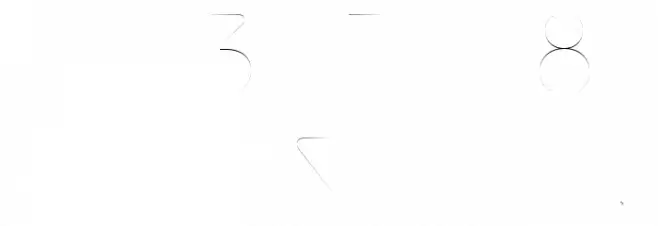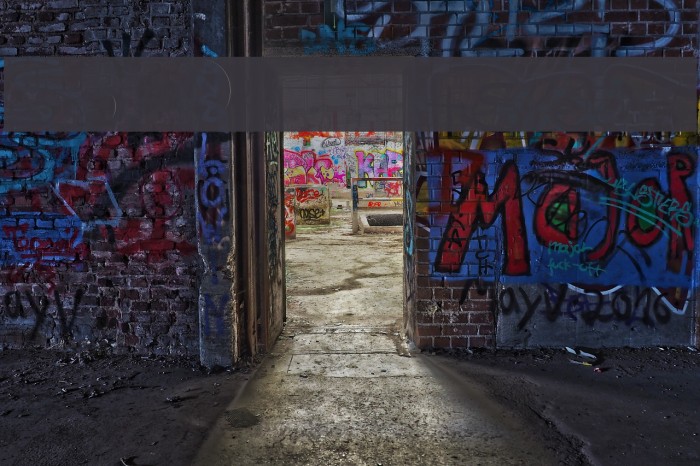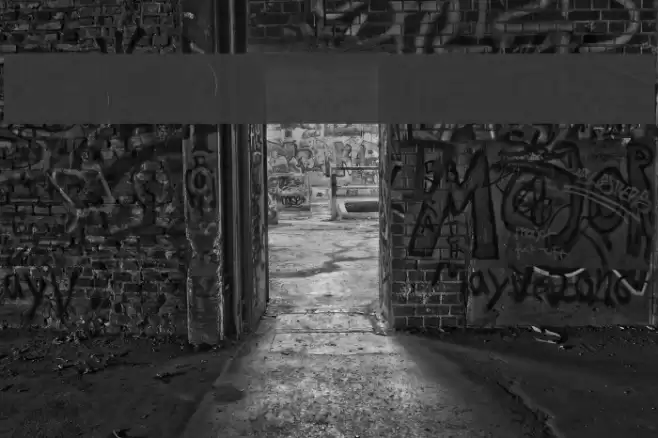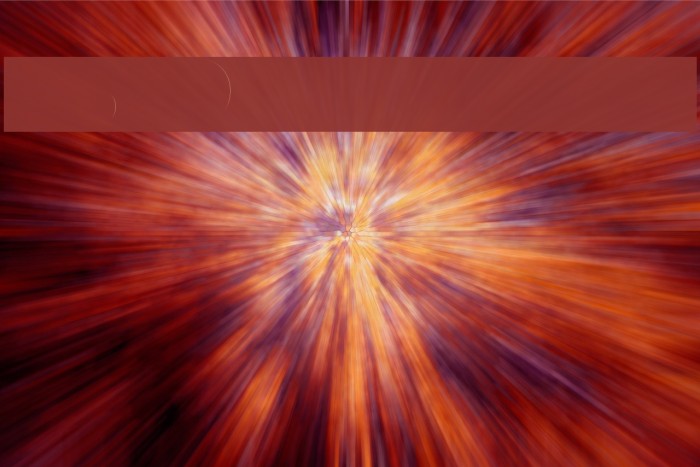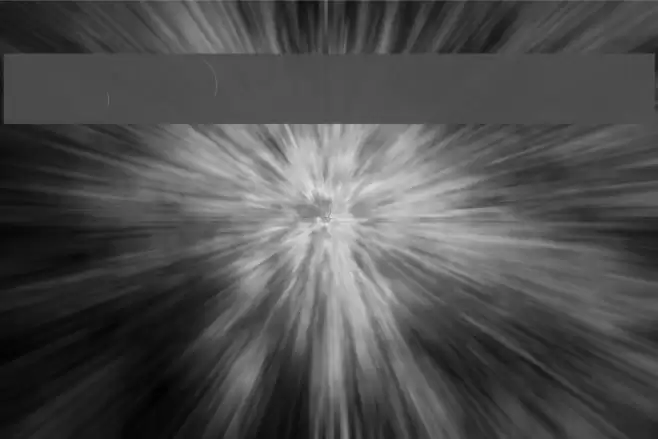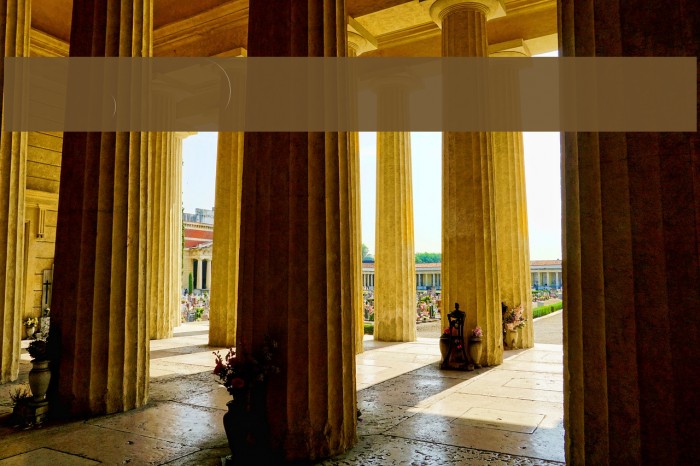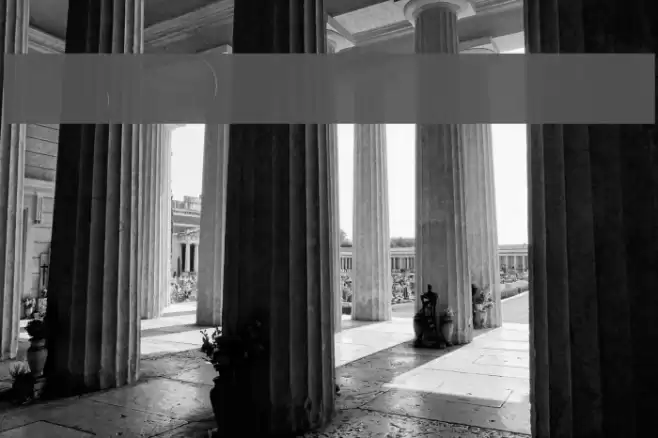
bh-engrave Font
bh-engrave Description
This font features a delicate and elegant design, characterized by thin, precise lines that give it a refined and sophisticated appearance. The characters are crafted with a high level of detail, reminiscent of traditional engraving techniques. The uppercase letters exhibit a classic style with subtle curves and sharp serifs, while the lowercase letters maintain a consistent flow, enhancing readability. The numerals are distinct and clear, with a uniform height that aligns well with the overall aesthetic. Special characters are designed to complement the main alphabet, maintaining the same level of intricacy and elegance.